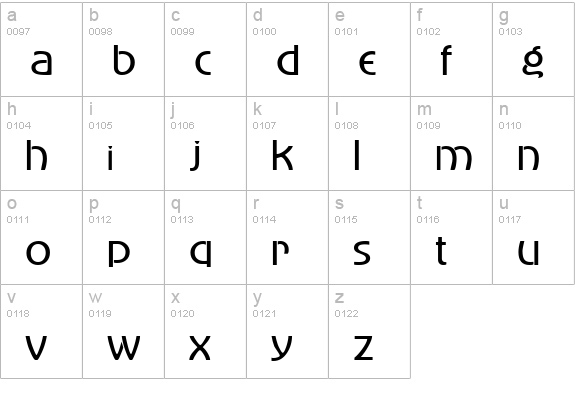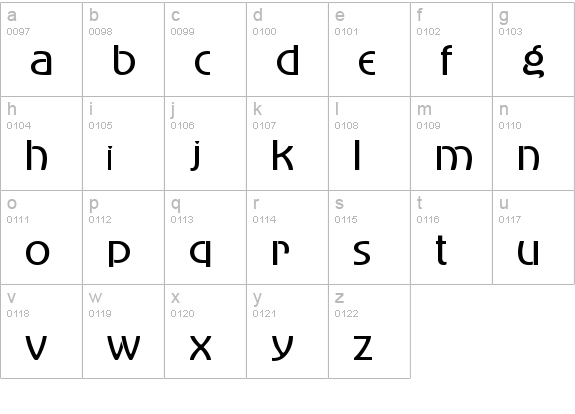
Introducing Advertiser font - a sleek and modern typeface that exudes sophistication and professionalism. With its clean lines and stylish design, Advertiser font is perfect for a wide range of projects, from advertising and branding to packaging and editorial design. This versatile font is sure to make your text stand out and grab attention. What's even better is that Advertiser font is completely free to download at FontsMarket.com. Yes, you read that right - you can get your hands on this premium font without spending a penny. Don't miss out on the opportunity to elevate your designs with the elegant and contemporary Advertiser font. Download it now and start creating stunning visuals that will leave a lasting impression.